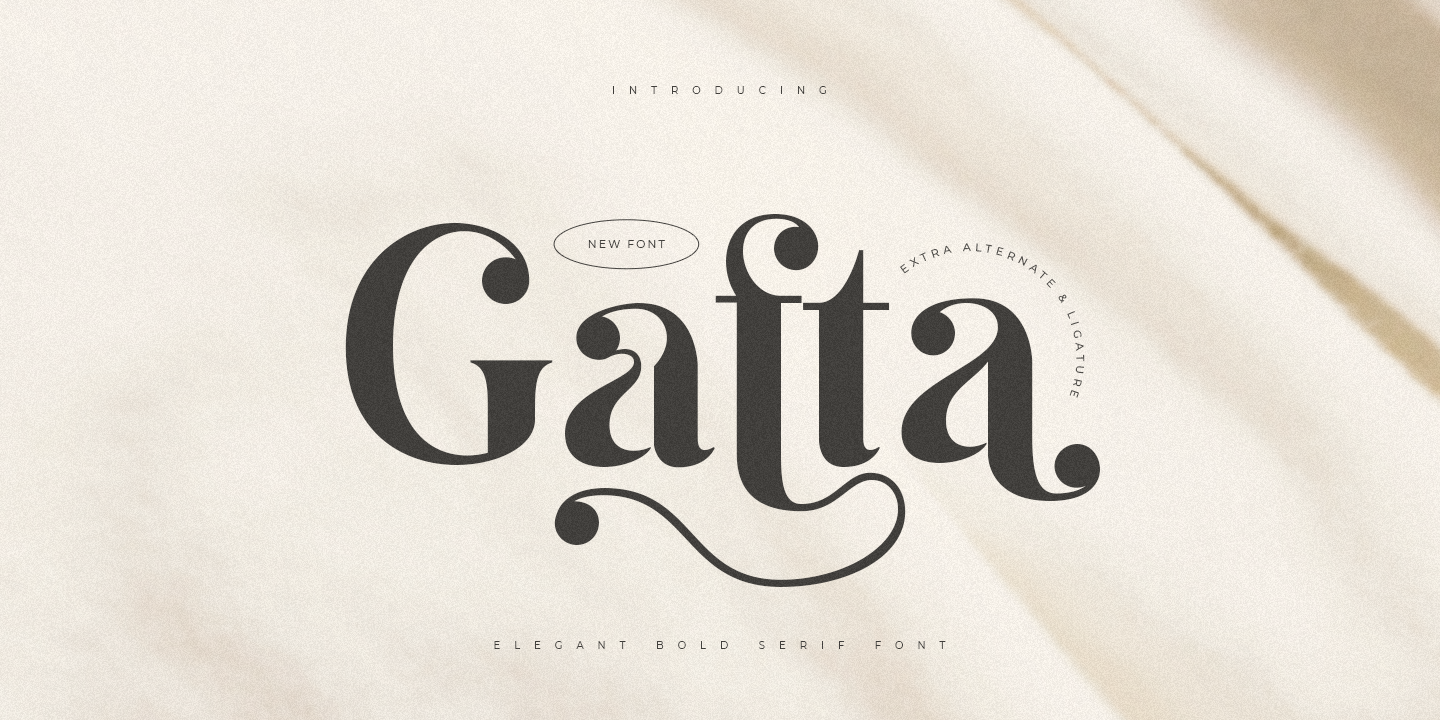
Gafta Font is perfect for contemporary design projects including modern corporate branding, tech startup logos, digital agency websites, progressive business presentations, innovative product packaging, forward-thinking marketing materials, creative portfolio designs, modern architectural signage, cutting-edge app interfaces, and dynamic social media graphics that require fresh, contemporary typographic solutions.
What makes Gafta Font so exciting is its perfect harmony of geometric precision with humanistic warmth that creates exceptional visual appeal and outstanding readability across all digital and print applications. This versatile typeface features clean, modern letterforms with subtle personality touches and optimized spacing that ensure maximum impact while maintaining professional credibility, making it ideal for brands seeking to project innovation and reliability simultaneously.
Gafta Font typically includes extensive font families with thin, light, regular, medium, bold, and black weights, plus matching italic styles, condensed variations, and comprehensive character sets supporting multiple languages, providing designers with complete typographic flexibility to create cohesive brand systems and sophisticated layout hierarchies.
This exceptional Gafta Font Free Download represents modern typography excellence, offering creative professionals a reliable foundation for projects demanding contemporary aesthetics and superior functionality. Whether you're developing startup branding, digital platforms, or progressive marketing campaigns, this font delivers consistent performance while projecting innovation and professionalism. The balanced design and extensive weight options make it particularly valuable for technology companies, creative agencies, and forward-thinking organizations seeking to communicate modernity, reliability, and design consciousness through typography that resonates with contemporary audiences and establishes strong brand presence.